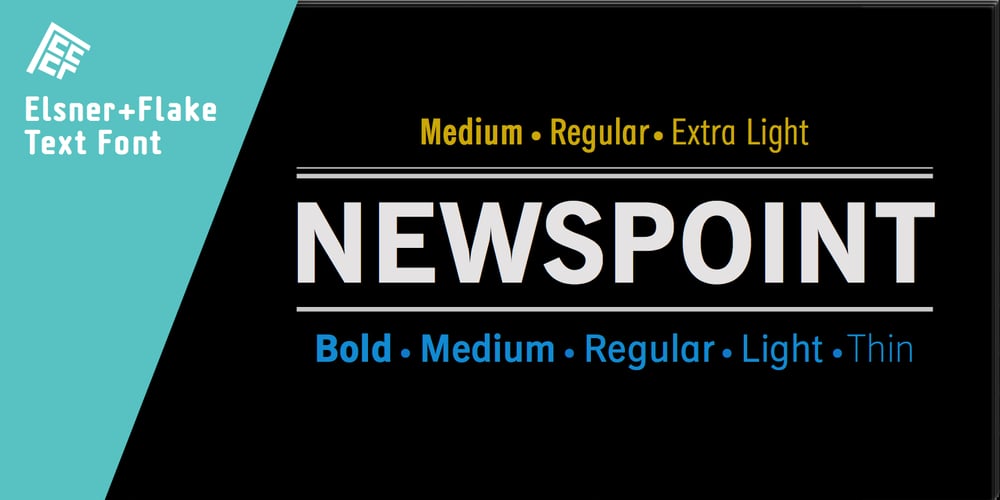
Newspoint
Newspoint font
Newspoint Font Family was designed by published by Elsner+Flake. Newspoint contains 8 styles and family package options. The design of the Newspoint typeface is based on the tradition of the American sans serif faces of the last century. This form expression was greatly influenced by the News Gothic type which was created by Morris Fuller Benton in 1908, and has, once again, become very popular. When the development of sans serif types such as Futura and Kabel by Renner and Koch began in 1925, the design of American sans serif types receded somewhat into the background. In the 1950’s, however, they experienced a renaissance which continues to this day. Thanks to its clean design and the relatively large x-height, the Newspoint is well suited for informative texts in newspapers, magazines, and brochures. In packaging design, as well, the Newspoint can display its strength in small print. Newspoint was developed as a customer-specific variation of the News Gothic. In contrast to the News Gothic, however, the face appears to be softer and more appealing thanks to the changed interpunctions. If so desired, the alternative characters give the typeface expanded individuality and a richness of design options.